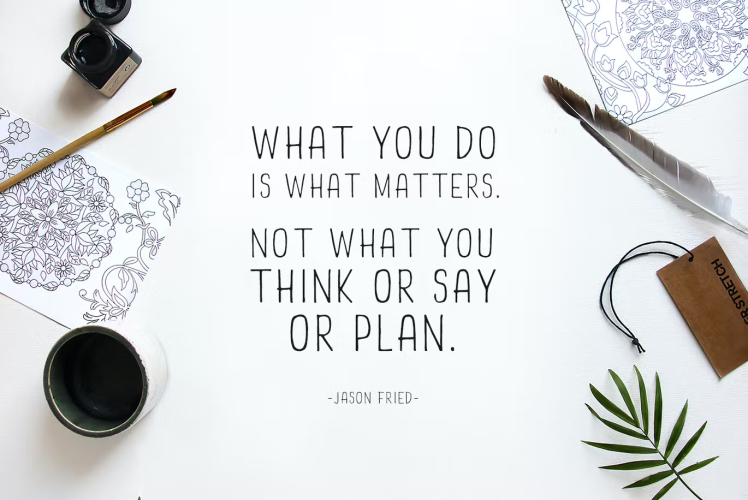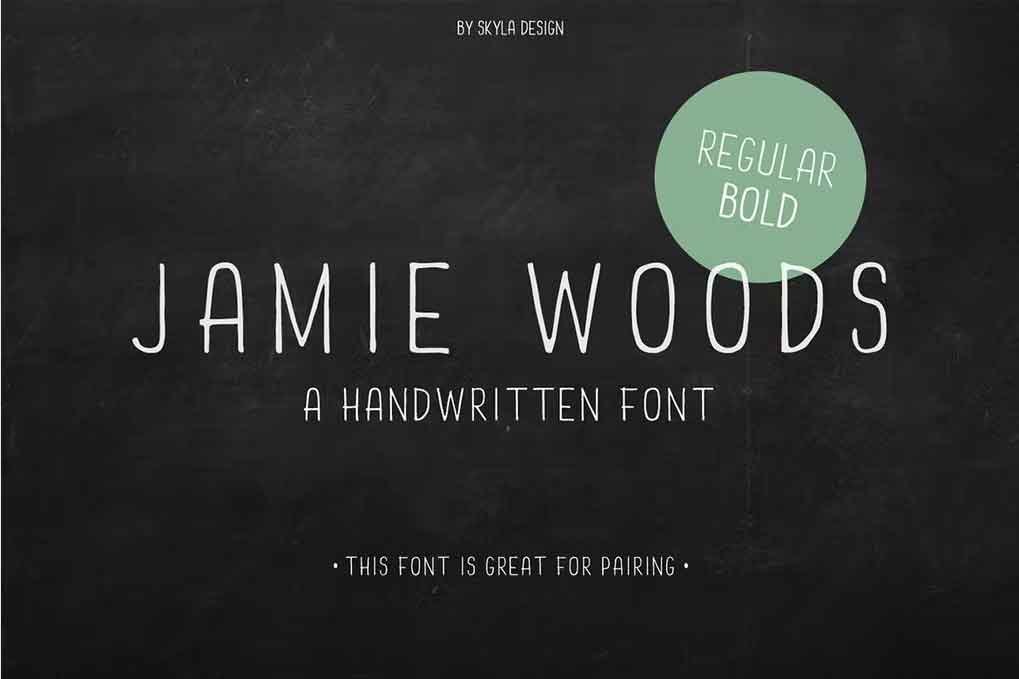
Skinny condensed Font
Jamie Woods is a condensed, handwritten font which comes in a Regular & Bold version. It’s a great font to use for pairing with other fonts and will look great on all your designs and branding materials.
Where Skinny condensed Font works best
Skinny condensed Font keeps its shape at 14 and 16 pixels, which is where interface text actually lives. Numbers and capitals stay distinguishable in tables.
Presentations are read at a distance; a clean sans with a strong bold is the safest hierarchy you can build in a hurry.
Simple letterforms survive angles, glare and movement, so Skinny condensed Font suits door signs, menus boards and exhibition panels.
What kind of work does Skinny condensed Font suit?
It sits in the Sans Serif Fonts group and reads as bold, branding, condensed, handwritten. That makes it a candidate wherever those qualities help: headings, packaging, social graphics and brand work. Set it at the size you plan to use before deciding.